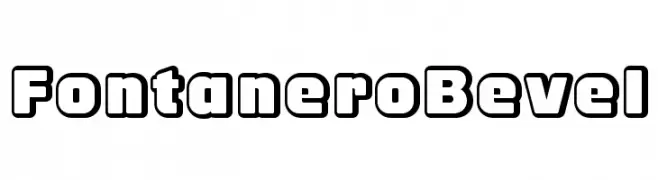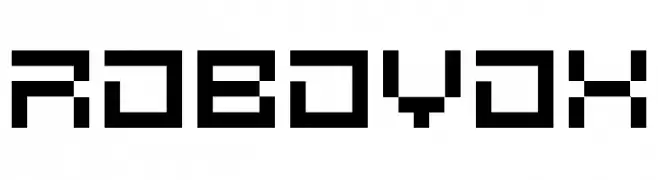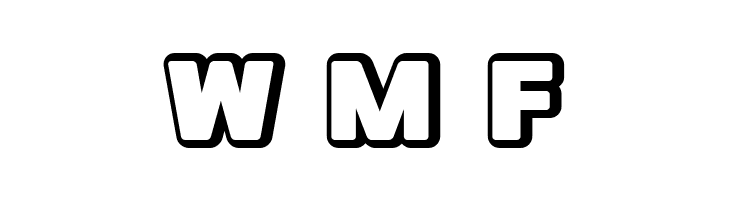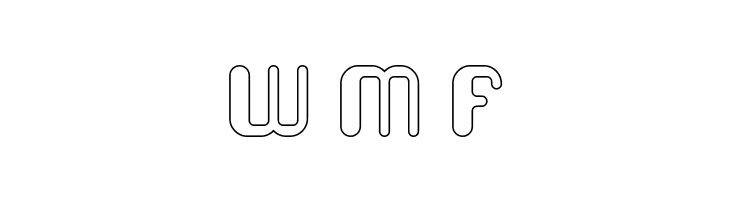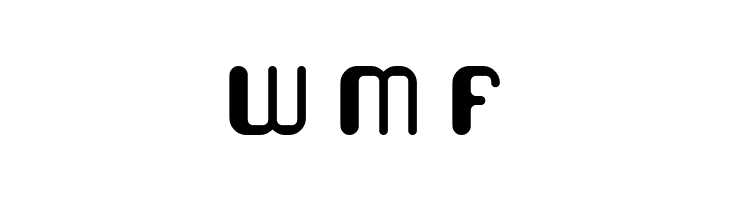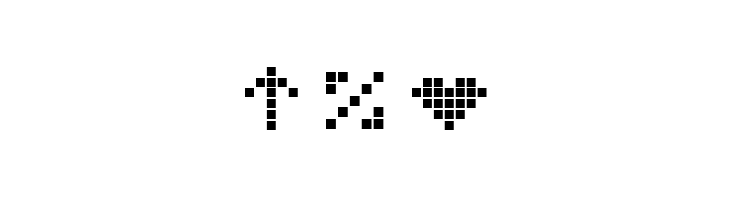
A bold, italic font with a modern and friendly design.
A hollow, rounded font with a modern and friendly appearance.
A playful, futuristic font with rounded edges and a modern look.
A bold, rounded, and futuristic font with a playful and modern appearance.
A pixelated, retro-style font inspired by early digital displays.
A futuristic, angular font with a robotic and mechanical aesthetic.
A futuristic, pixelated font with a digital, geometric style.
A bold, beveled font with a three-dimensional, geometric style.
A clean, modern, and condensed typeface with uniform stroke width and excellent readability.
A modern, condensed, bold italic font with a sleek and professional appearance.